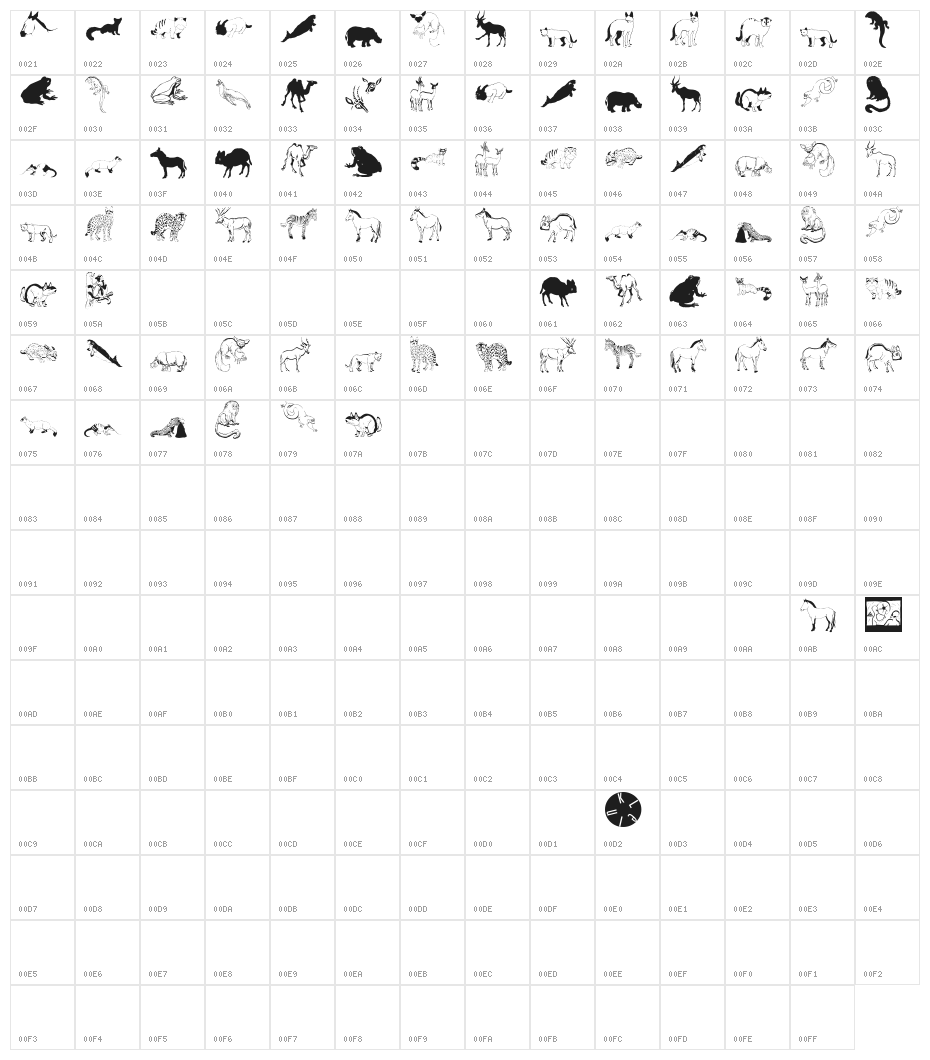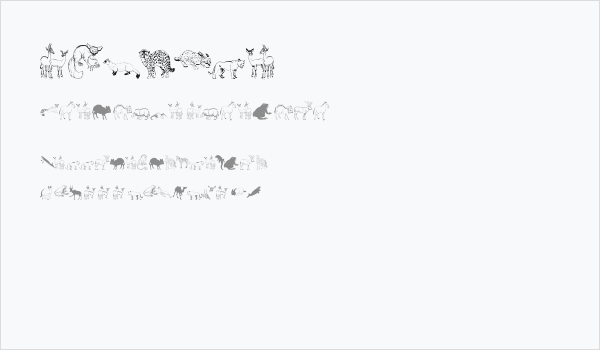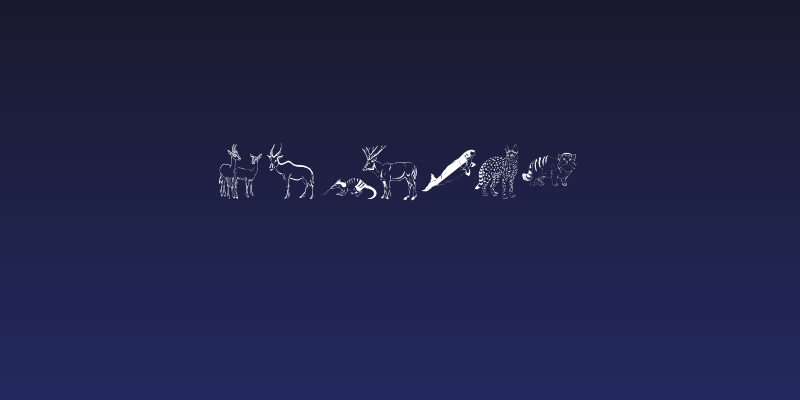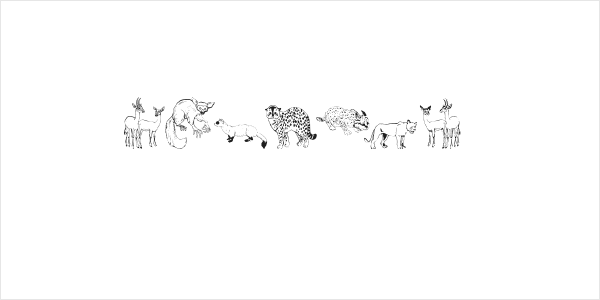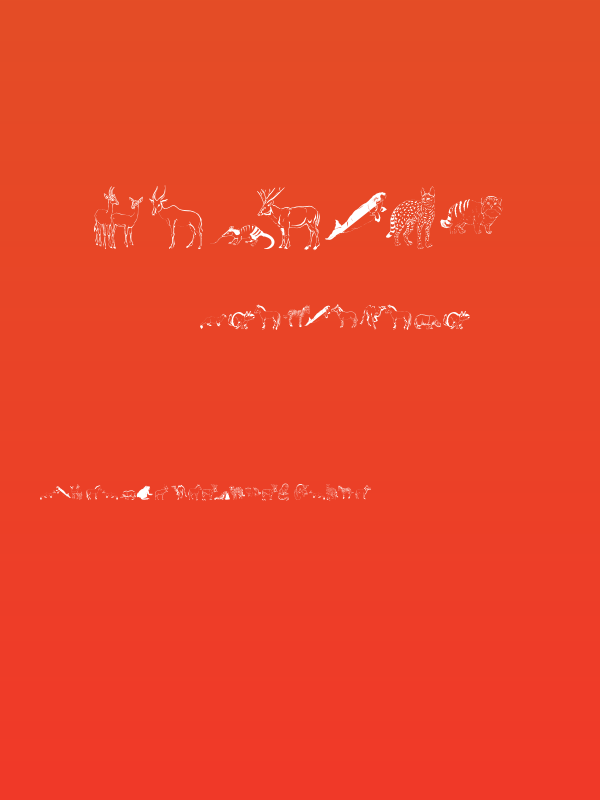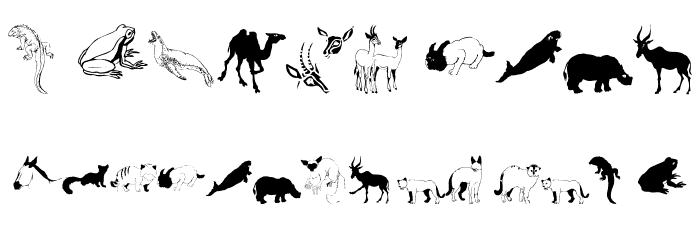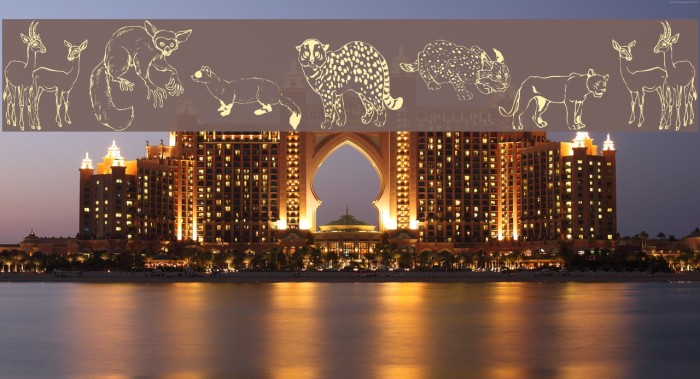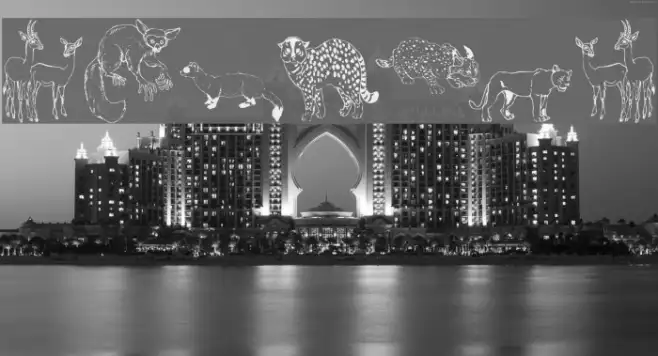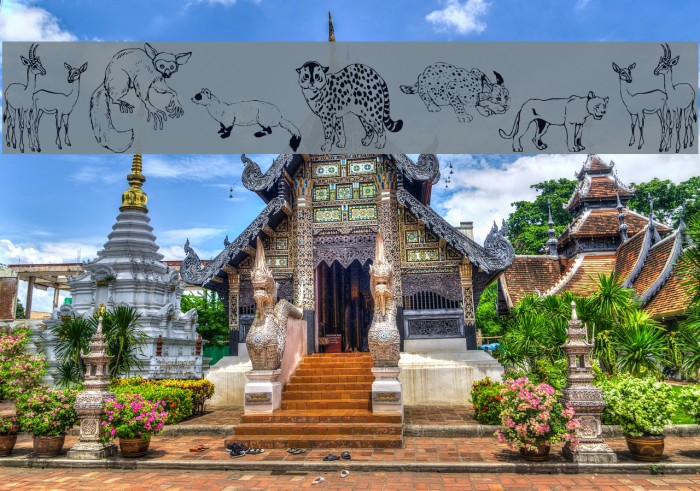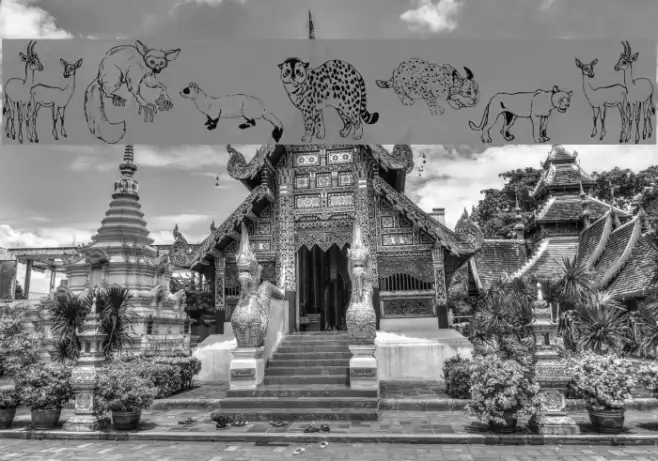
Djungle Font
Djungle Description
A decorative font composed of detailed black-and-white animal illustrations representing each letter and character. Each glyph is a unique animal drawing, blending naturalistic forms with clear outlines, resulting in a playful and visually engaging style.
| Overall Style | Decorative, Playful, Naturalistic |
| Use Case | Logos, Headlines, Posters, Themed event materials |
| Proposed Projects | Children’s books, educational materials, posters, animal-themed branding, creative invitations. |